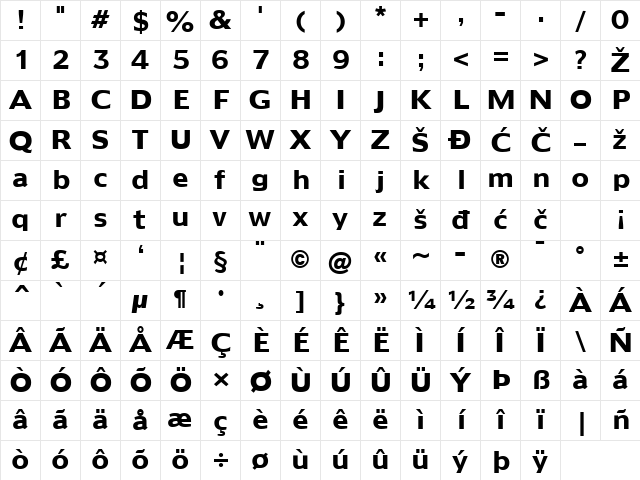
101! Twinkle Lit'l Font Regular Free Font
101! Twinkle Lit'l Font Regular
Design Context for 101! Twinkle Lit'l Font
101! Twinkle Lit'l Font is a composed and adaptable typeface that performs quietly and consistently across a wide range of design contexts.